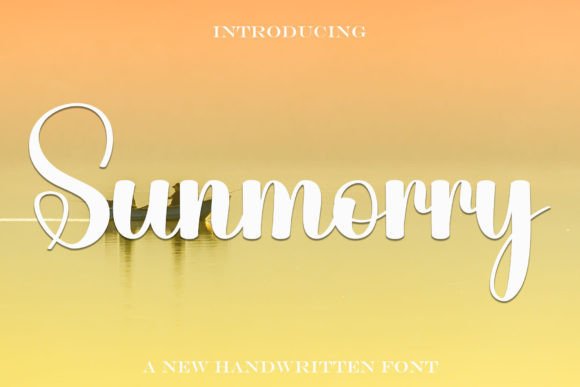
Introducing Sunmorry Font, the perfect choice for anyone seeking to add a touch of elegance and sophistication to their projects. This exquisite script font, created by the talented putrasyahreza00, is a true work of art that will captivate your audience from the moment they lay eyes on it.
With its contemporary atmosphere and impeccable form, Sunmorry Font takes inspiration from the timeless beauty of classic calligraphy. Every stroke is carefully crafted to exude grace and charm, making it an ideal choice for script tattoos and any other creative endeavors that require a touch of finesse.
One of the standout features of Sunmorry Font is its balance and versatility. Whether you're designing a wedding invitation, a logo, or a social media graphic, this font will effortlessly enhance the beauty of your projects. Its smooth curves and elegant lines will leave a lasting impression on your audience, setting you apart from the crowd.
But what truly sets Sunmorry Font apart is its amazing range of glyphs and ligatures. With PUA encoding, accessing these delightful extras is a breeze. Discover an abundance of unique and artistic characters that will elevate the visual appeal of your designs. Let your creativity run wild as you experiment with different combinations and create truly one-of-a-kind masterpieces.
This font is not just a tool for creating stunning visuals; it's a gateway to evoking emotions and creating meaningful connections with your audience. Sunmorry Font has the power to transport your viewers to a world of elegance, sophistication, and beauty. It speaks directly to the heart, leaving a lasting impact on anyone who encounters it.